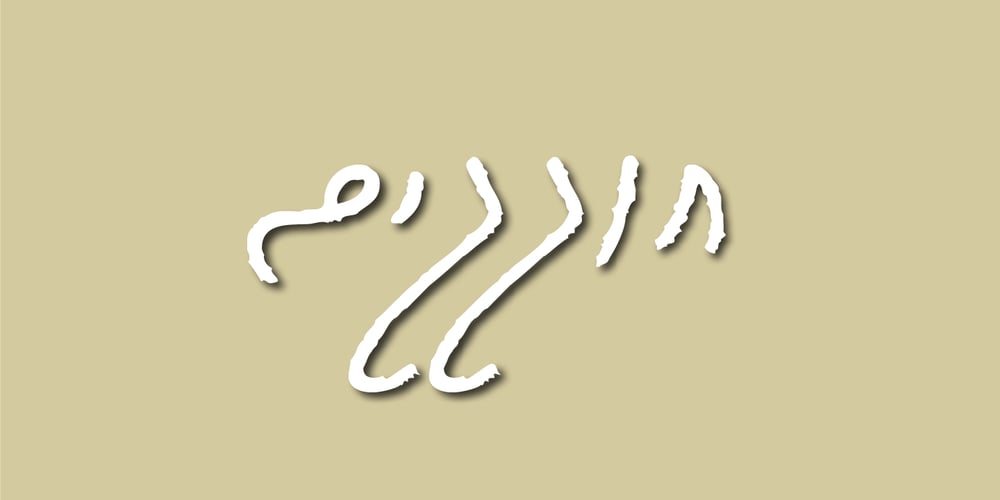
Gulash MF
Gulash MF font
Gulash MF Font Family was designed by Ronnie Blhsn and published by Masterfont. Gulash MF contains 2 styles and family package options. Most cute handwriting, stylish, funny yet mature!